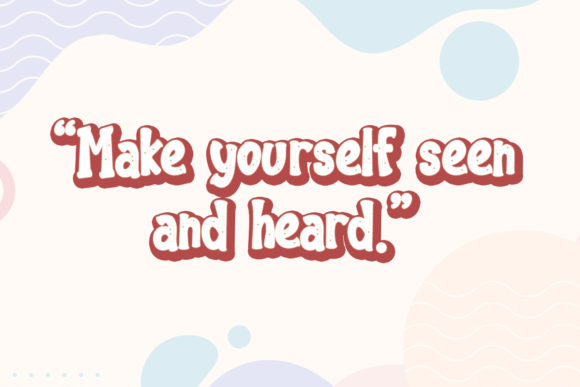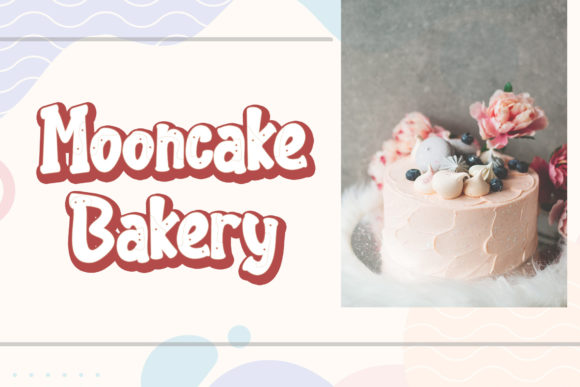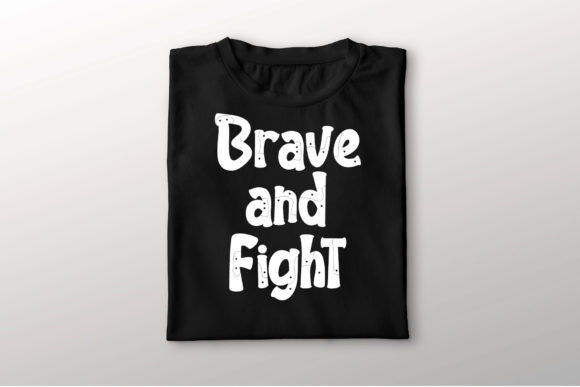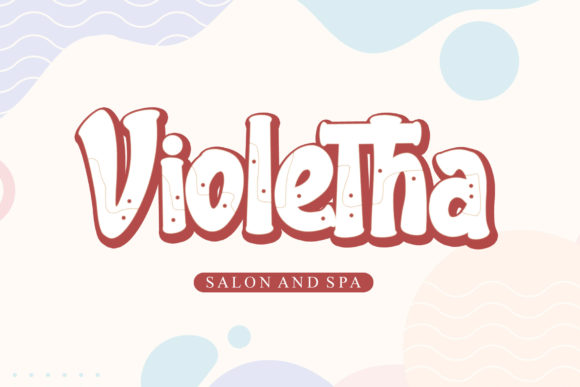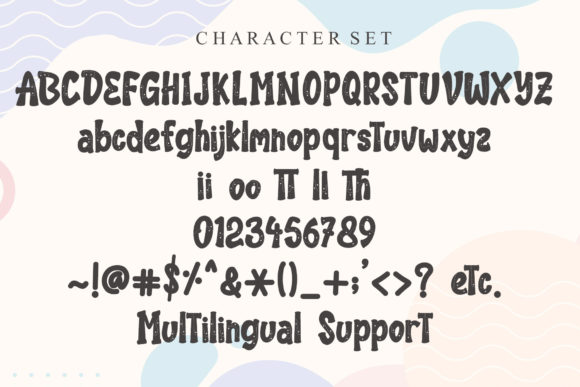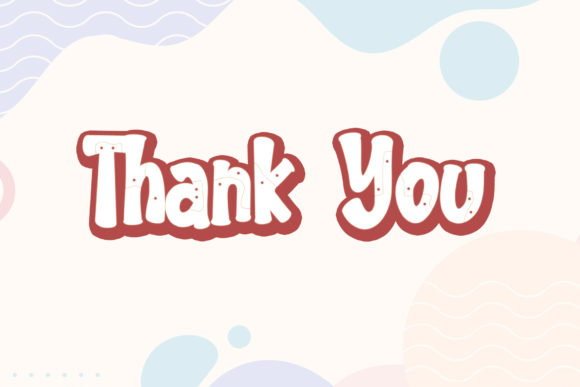
Introducing Angolla Font: Elevate Your Designs with Elegance and Modernity
In the world of design, typography plays a crucial role in capturing the audience’s attention and conveying a message effectively. A font can make or break a design, and that’s where Angolla Font comes in – a fabulous, elegant, and modern display font that’s sure to engage your audience and make your branding stand out.
What Makes Angolla Font Special?
Angolla Font is a stylish and versatile font that can be used for a wide range of design projects. Its elegant and modern aesthetic makes it perfect for social media branding projects, fashion designs, printed quotes, or even as a stylish text overlay to any background image. The font’s unique characteristics and sophisticated feel make it an excellent choice for designers and crafters looking to add a touch of luxury to their work.
Key Features of Angolla Font
- Elegant and Modern Design: Angolla Font boasts a sleek and contemporary design that’s sure to impress your audience.
- Versatile: This font can be used for various design projects, from social media graphics to print materials.
- High-Quality: Angolla Font is crafted with attention to detail, ensuring a high-quality output that will make your designs shine.
- Easy to Read: Despite its elegant design, Angolla Font remains easy to read, making it perfect for use in a variety of contexts.
Use Cases for Angolla Font
Angolla Font’s versatility makes it suitable for a wide range of design projects. Here are some use cases to get you started:
- Social Media Branding: Use Angolla Font to create stunning social media graphics that will make your brand stand out.
- Fashion Designs: Add a touch of elegance to your fashion designs with Angolla Font, perfect for creating stylish posters, flyers, or brochures.
- Printed Quotes: Use Angolla Font to create beautiful printed quotes that will inspire and motivate your audience.
- Text Overlays: Add Angolla Font as a stylish text overlay to any background image, creating a visually appealing design that’s sure to grab attention.
Why Choose Angolla Font?
With so many fonts available, why choose Angolla Font? Here are a few reasons why designers and crafters love Angolla Font:
- Unique Design: Angolla Font’s unique design sets it apart from other fonts, ensuring your designs will stand out from the crowd.
- Time-Saving: With Angolla Font, you can create stunning designs in no time, saving you time and effort.
- High-Quality Output: Angolla Font ensures a high-quality output that will make your designs look professional and polished.
| Author | Letterafa Studio |
Angolla Font is an exceptional font that’s sure to elevate your designs with its elegance and modernity. Its versatility, high-quality design, and ease of use make it a must-have for designers and crafters. Whether you’re working on social media branding projects, fashion designs, printed quotes, or text overlays, Angolla Font is the perfect choice. So why wait? Get Angolla Font today and take your designs to the next level!